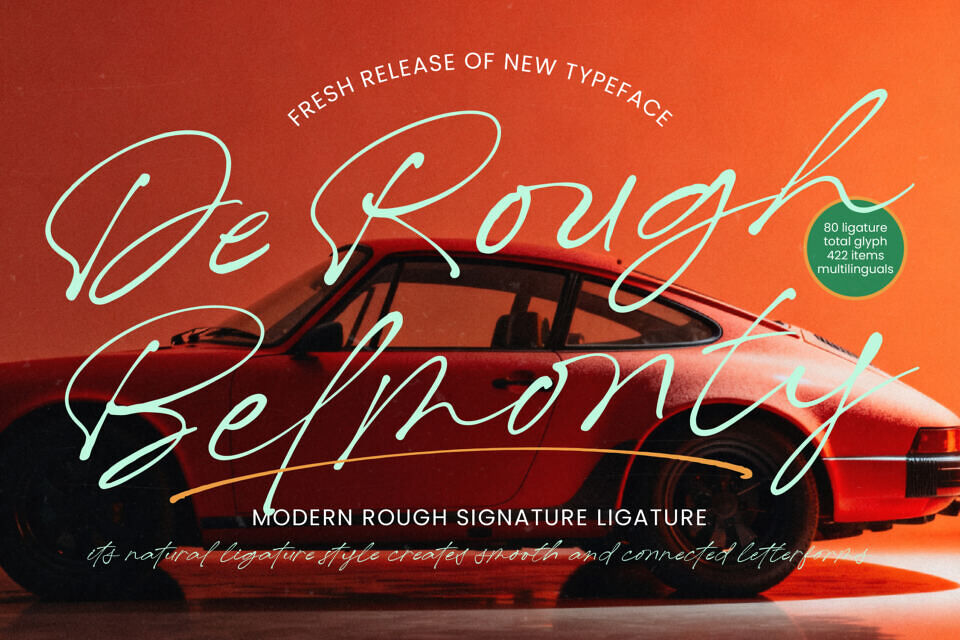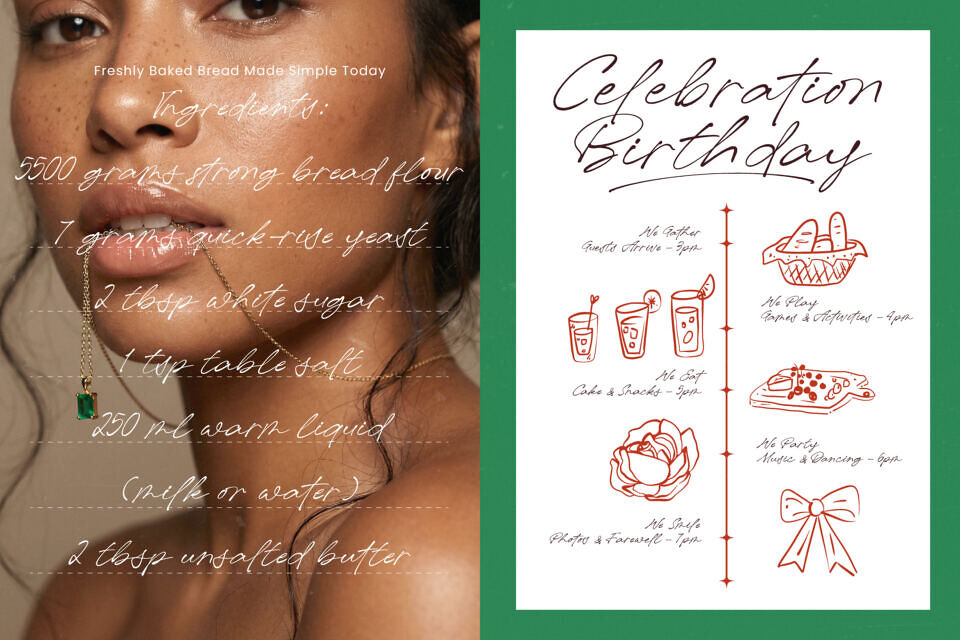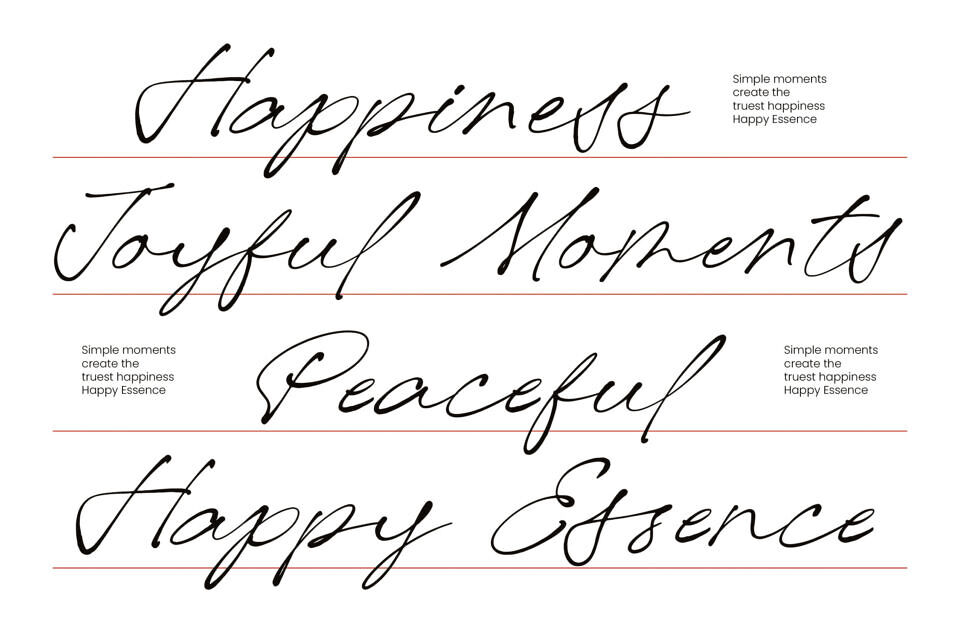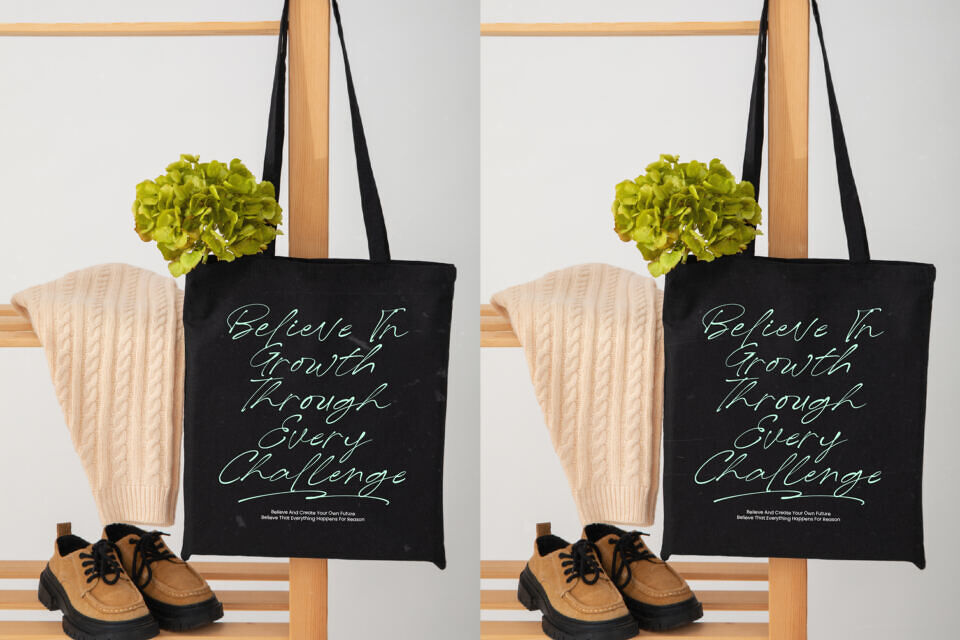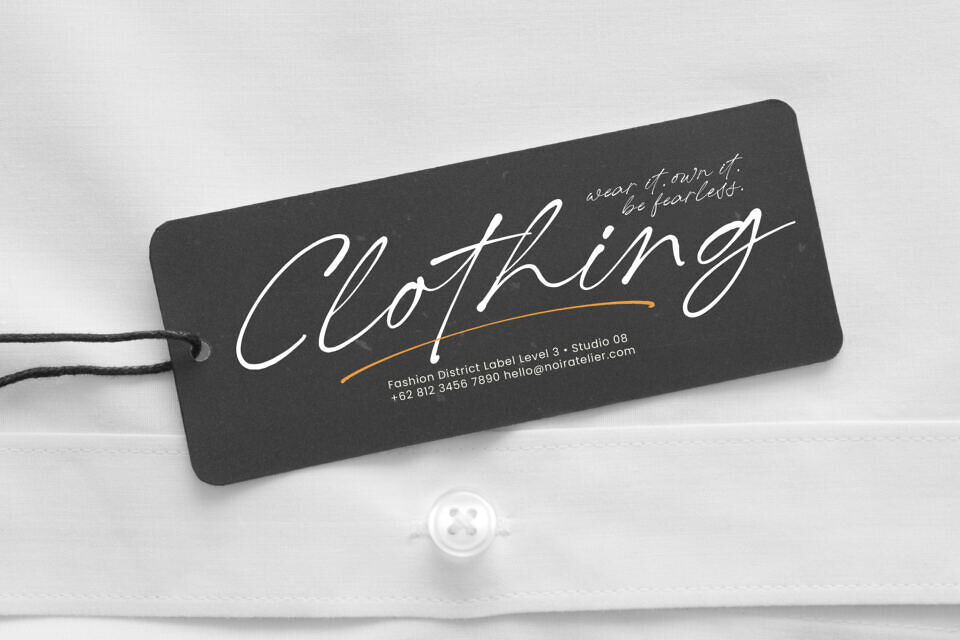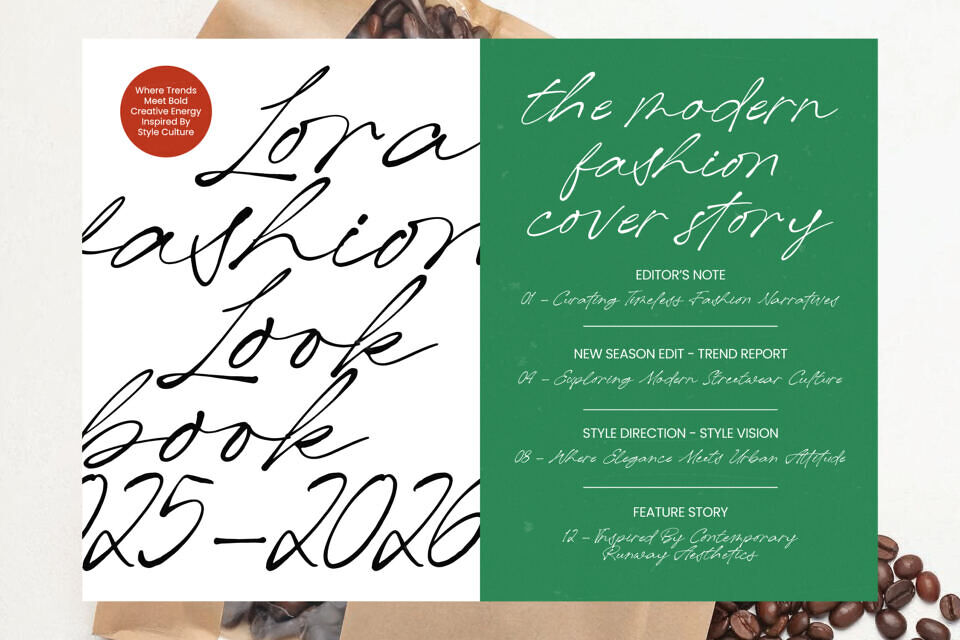
De Rough Belmonty is a high-impact script font that embodies elegance and authenticity. Its textured edges and expressive motion bring sophistication to designs, conveying messages with personality and premium feel.
With 422 glyphs and 80 natural ligatures, it ensures consistent branding across languages and projects, making it ideal for luxury sectors like fashion and automotive design. This versatile font helps creators establish a bold, memorable visual identity that stands out in a crowded market.